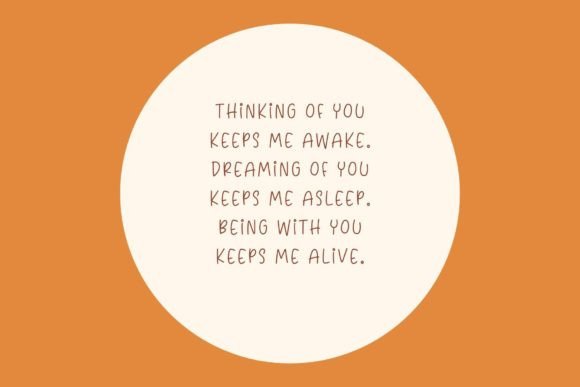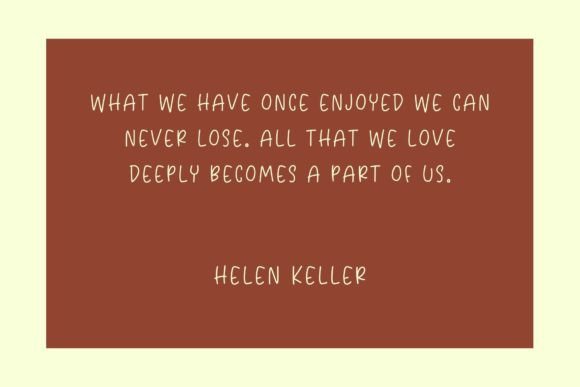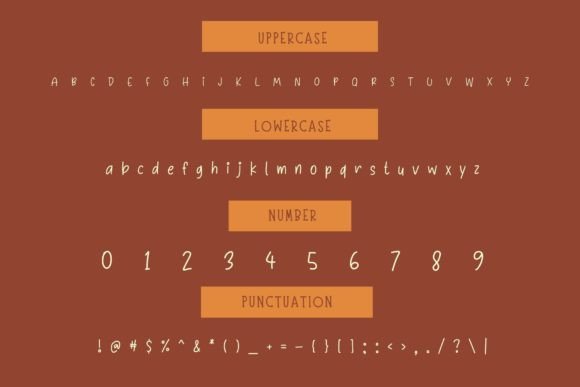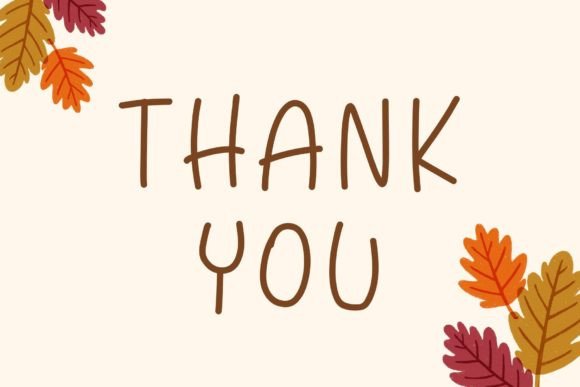
The Charm of Gatlin Font: A Designer’s New Best Friend
I’ll never forget the time I was working on a branding project for a children’s party planning service. I had the concept, the color palette, and the illustrations all nailed down, but I was stuck on finding the perfect font. The project needed something playful, yet elegant; something that would appeal to parents and kids alike. That’s when I stumbled upon Gatlin Font, and let me tell you, it was love at first sight! 💕
An Honest Review of Gatlin Font
Gatlin Font has quickly become one of my go-to fonts for a variety of projects. Here’s what I love about it:
- ✨ Playful and Authentic: Gatlin embodies the perfect blend of playfulness and authenticity, making it ideal for designs that need a personal touch.
- ✅ Highly Versatile: Whether I’m working on blog posts, logos, branding, ads, invitations, or greeting cards, Gatlin Font fits right in.
- 💖 Elegant yet Casual: It strikes a beautiful balance between elegance and casualness, making it perfect for a wide range of design projects.
Of course, no font is perfect, and Gatlin has a few quirks:
- 🤔 Legibility at Small Sizes: While Gatlin is stunning at larger sizes, it can get a bit tricky to read at very small sizes. It’s best used at 14px or larger for optimal readability.
- ⚠️ Limited Formality: Given its playful nature, Gatlin might not be the best choice for very formal projects or corporate branding that requires a more serious tone.
- Experiment with OpenType features like ligatures and stylistic alternates to add more character to your text.
The Story Behind Gatlin Font
Gatlin Font was designed with the intention of bringing a touch of personal warmth and playfulness to digital and print designs. Inspired by the whimsical world of children’s literature and the elegance of handwriting, Gatlin’s creator aimed to produce a font that feels both approachable and sophisticated.
| Font Name | Gatlin Font |
| Is Gatlin suitable for professional branding? | Absolutely! Gatlin’s unique blend of playfulness and elegance makes it suitable for a wide range of professional branding projects, especially those aiming to connect with a younger audience or convey a sense of creativity. |
| Does Gatlin support OpenType features? | Yes, Gatlin Font supports OpenType features, including ligatures and stylistic alternates, allowing for a high degree of customization and creativity in your designs. |
| Is Gatlin easy to read? | Generally, yes. Gatlin is designed to be legible, but like any font, its readability can depend on the size and context in which it’s used. For best results, use it at sizes 14px or larger. |
With Gatlin Font, you’ll find a versatile and charming addition to your design toolkit. Its blend of playfulness and elegance makes it perfect for a wide range of projects. So go ahead, add Gatlin to your designs, and enjoy the results! 🎉